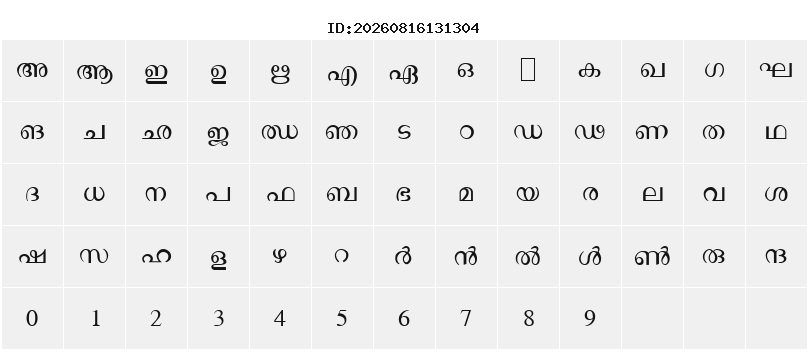
Ssoft's-Veena-ML Preview
• Font Name: Ssoft's-Veena-ML
• Full Font Name: Ssoft's-Veena-ML
About Ssoft's-Veena-ML.ttf
Ssoft's-Veena-ML.ttf is a modern, elegant sans-serif font designed for ultimate readability and visual harmony. Perfect for branding, headlines, web design, and print materials.